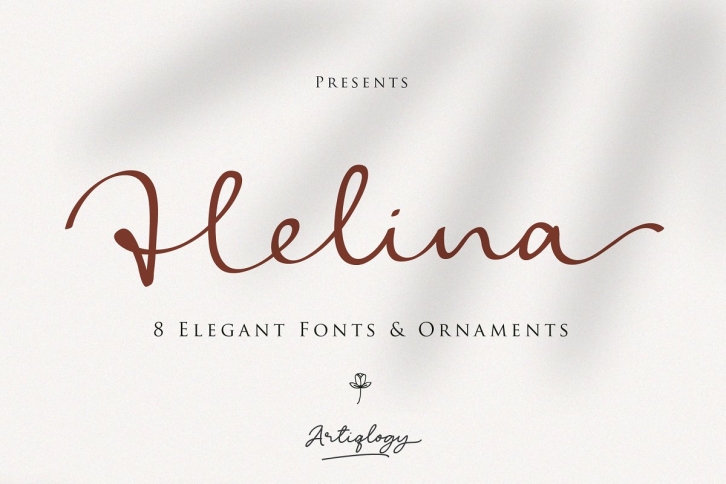
The Helina font pack comes with 9 versions, there are 6 elegant handwritten font styles, 2 sans serif fonts and ornaments. You can use and combine as you like according to your project type. There are open type features such as alternate styles, swash and ligatures. We designed this font to look elegant, classy, ​​easy to read, stylish, attractive and easy to use.
Helina Font is a great choice for the design of signature logos, quotes, album covers, business cards and many other design projects.